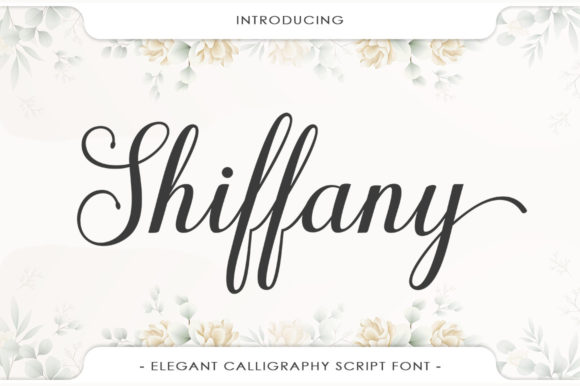
Behold, the captivating Shiffany Script font—a treasure trove of elegance and charm that will transform your creative endeavors into breathtaking masterpieces. This exquisitely crafted script font, brought to life by the ingenious Attract Studio, is a testament to the transformative power of typography.
Shiffany Script's ethereal beauty lies in its meticulously designed curves and flourishes, reminiscent of a gentle summer breeze dancing through a field of flowers. Each letter, adorned with intricate details, carries a touch of whimsy and grace, adding a layer of sophistication to your designs.
Immerse yourself in the versatility of Shiffany Script, a font that effortlessly adapts to a myriad of creative projects. Whether you're crafting heartfelt Christmas cards that evoke the warmth of the holiday season, designing enchanting wedding invitations that speak of love and commitment, or creating captivating social media posts that demand attention, this font is your steadfast companion.
With Shiffany Script at your disposal, you possess the power to transport your audience to a world of enchantment and wonder. Its delicate strokes, reminiscent of a skilled calligrapher's hand, lend an air of refinement and artistry to your work, leaving an indelible mark on the hearts of your readers or viewers.
Unleash your creativity and embark on a typographic journey like no other. Shiffany Script awaits you—a font that will ignite your imagination and elevate your designs to new heights of elegance and sophistication. Embrace the allure of Shiffany Script and witness the transformation of your creative vision into an awe-inspiring reality.